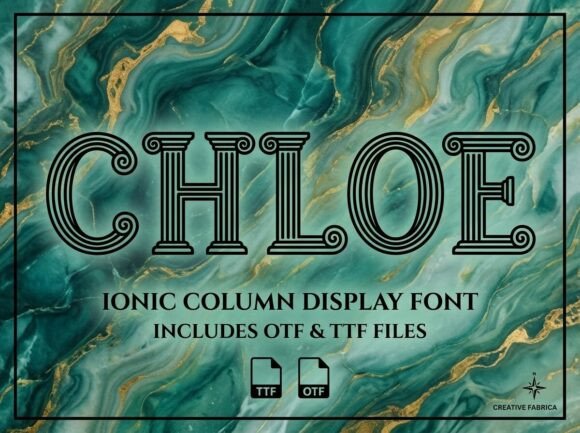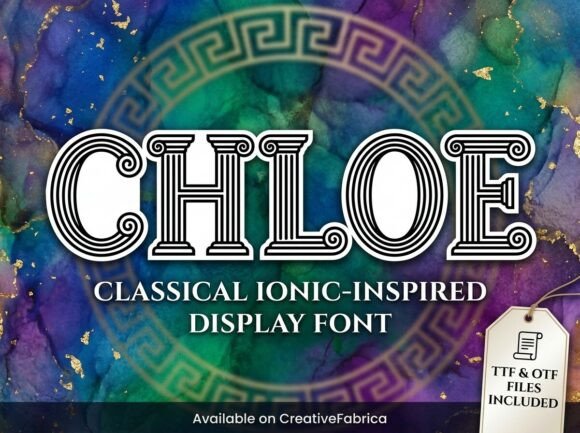
Introducing Chloe Font: Elegance and Sophistication in Typography
In the world of typography, few fonts capture the essence of elegance and sophistication as beautifully as Chloe. This majestic display typeface is designed to evoke a sense of classical and architectural grandeur, reminiscent of ancient Greece’s iconic Ionic columns. With its stately letterforms, rhythmic fluted lines, and graceful volute curls, Chloe is the perfect choice for designers and crafters looking to add a touch of refinement to their projects.
The Inspiration Behind Chloe Font
Chloe’s design is deeply rooted in the classical architecture of ancient Greece. The font’s creator drew inspiration from the Ionic columns, which are characterized by their fluted lines and volute curls. These distinctive features have been meticulously crafted into Chloe’s letterforms, giving the font a unique and timeless aesthetic. The result is a typeface that exudes elegance, sophistication, and a sense of history.
Key Features of Chloe Font
So, what makes Chloe font so special? Here are some of its key features:
• Stately Letterforms: Chloe’s letterforms are designed to be majestic and refined, with a grand structural weight that commands attention.
• Rhythmic Fluted Lines: The font’s fluted lines are inspired by the Ionic columns of ancient Greece, adding a sense of rhythm and movement to the letterforms.
• Graceful Volute Curls: The volute curls at the terminals of Chloe’s letterforms add a touch of elegance and sophistication, completing the font’s classical look.
• Timeless Aesthetic: Chloe’s design is timeless, making it suitable for a wide range of applications, from historical book covers to modern interior design identities.
Use Cases for Chloe Font
Chloe font is an versatile typeface that can be used in a variety of applications, including:
• Independent Museum Branding: Chloe’s elegant and sophisticated design makes it perfect for museum branding, adding a touch of refinement to logos, signage, and marketing materials.
• Upscale Interior Design Identities: The font’s classical aesthetic makes it suitable for high-end interior design projects, such as luxury hotel branding, restaurant identities, and upscale retail design.
• Historical Book Covers: Chloe’s timeless design makes it an excellent choice for historical book covers, adding a sense of authenticity and elegance to the publication.
• High-Impact Social Media Headers: The font’s grand structural weight and refined aesthetic make it perfect for social media headers, adding a touch of sophistication to online profiles and marketing campaigns.
Why Choose Chloe Font?
With so many fonts available, why choose Chloe? Here are a few reasons why designers and crafters love this majestic display typeface:
• Unique Design: Chloe’s classical design sets it apart from other fonts, making it a standout choice for projects that require a touch of elegance and sophistication.
• Versatility: The font’s versatility makes it suitable for a wide range of applications, from print to digital media.
• Timeless Aesthetic: Chloe’s timeless design ensures that it will remain relevant for years to come, making it a valuable addition to any designer’s font library.
Font Name Chloe Font
Author Creativeguru
In conclusion, Chloe font is a majestic display typeface that captures the essence of elegance and sophistication. With its classical design, stately letterforms, and timeless aesthetic, Chloe is the perfect choice for designers and crafters looking to add a touch of refinement to their projects. Whether you’re working on independent museum branding, upscale interior design identities, historical book covers, or high-impact social media headers, Chloe font is sure to impress.